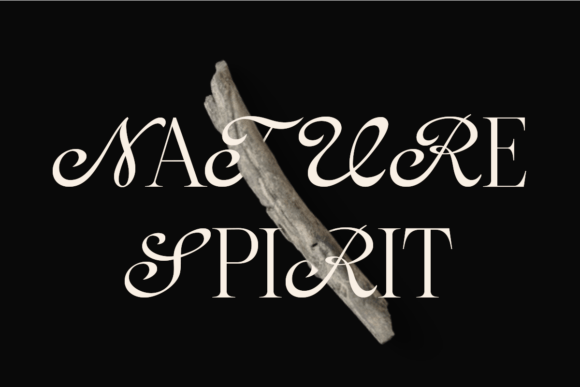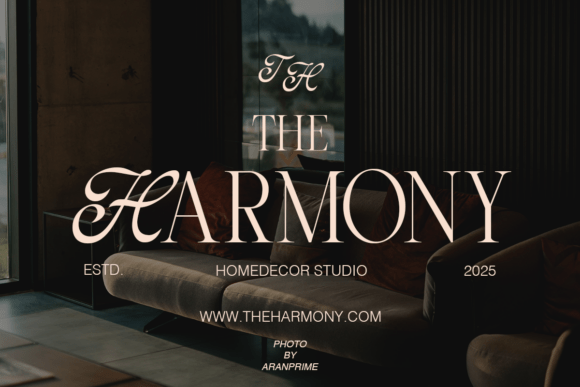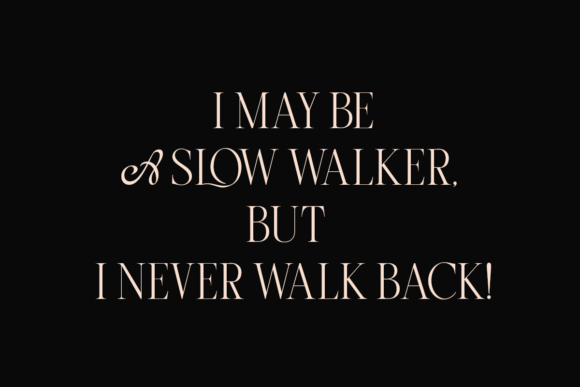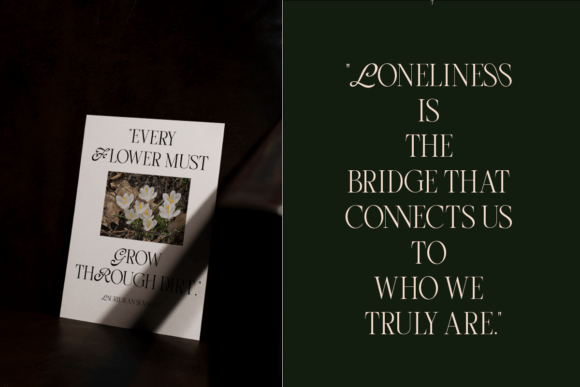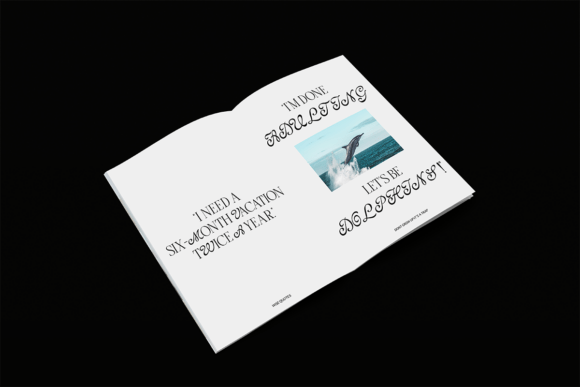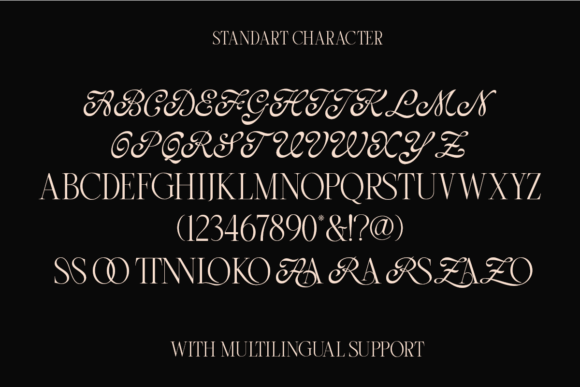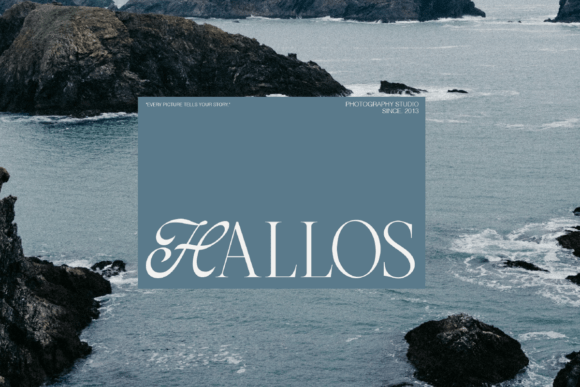
Grimlins Font
Grimlins is a mesmerizing serif font that blends elegance with a touch of luxury. Its refined serif structure, paired with graceful swashes, evokes an enchanting, classy aesthetic perfect for luxury branding, editorial design, invitations, and packaging. Whether crafting a romantic theme or an ethereal fairytale-inspired project, Grimlins brings an irresistible charm that elevates any design.